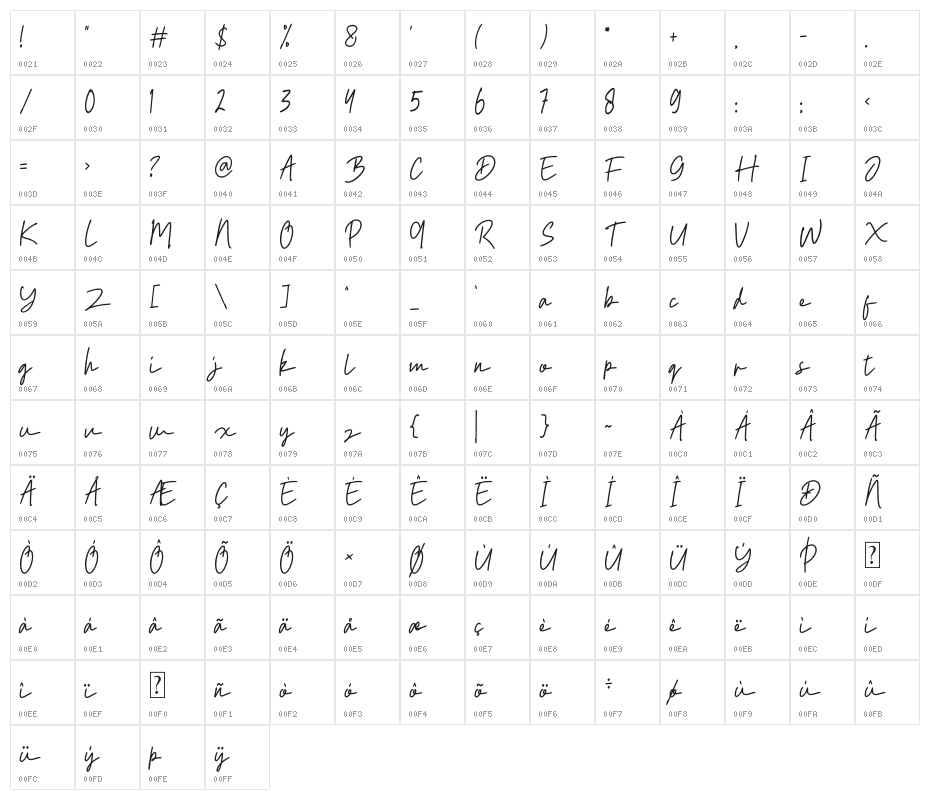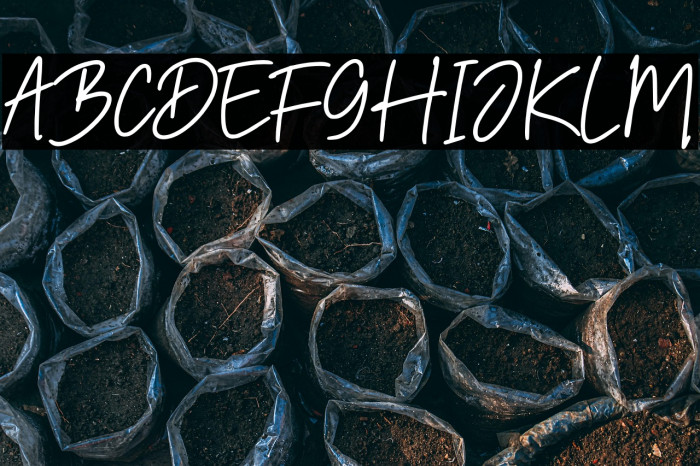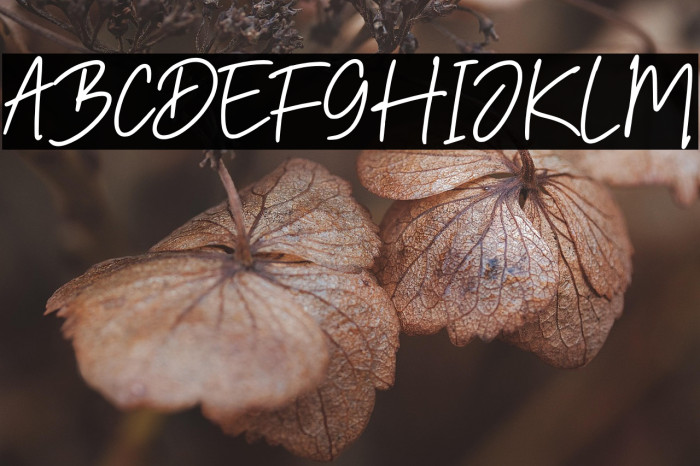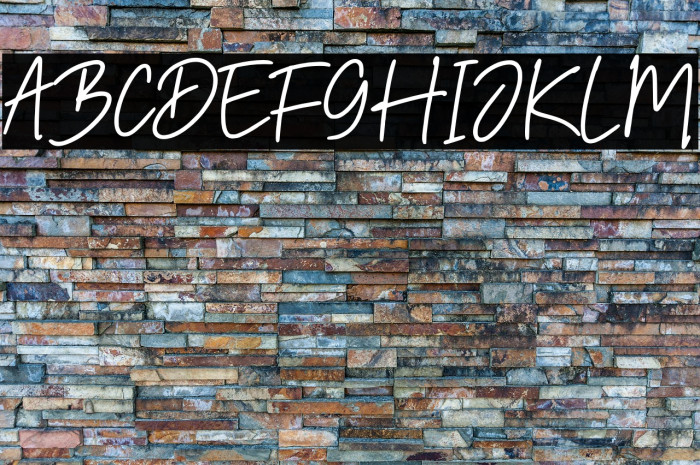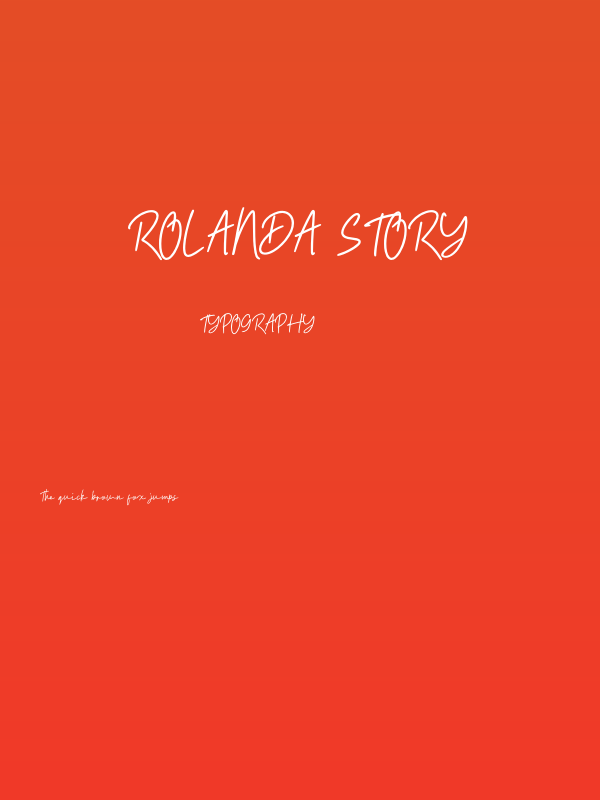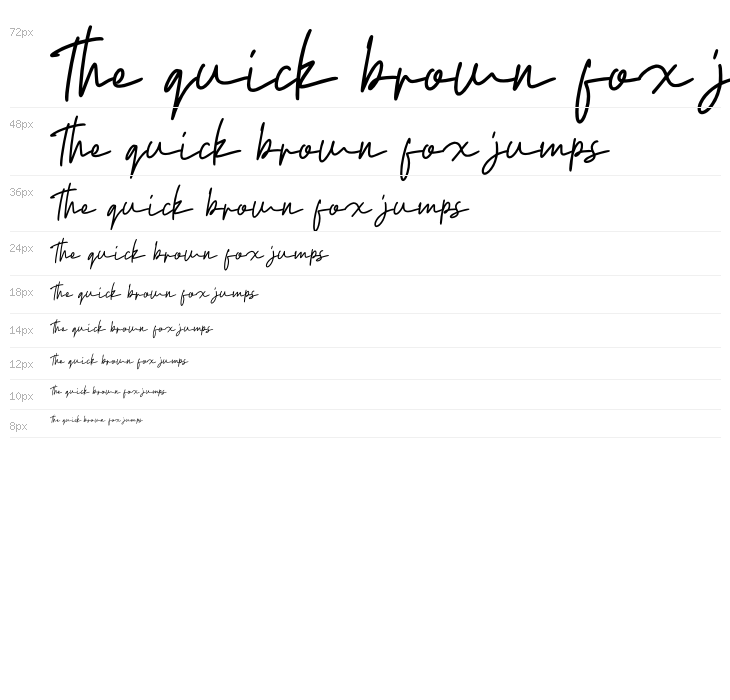
Rolanda Story Font
Rolanda Story Description
This font exudes a casual and dynamic handwritten style, characterized by its fluid and slightly slanted letterforms. The strokes are smooth and continuous, giving it a natural and personal touch. The uppercase letters are bold and slightly elongated, while the lowercase letters maintain a consistent flow, enhancing readability. The numerals and special characters are crafted with the same fluidity, ensuring a cohesive look across all characters. This font's informal yet stylish appearance makes it versatile for various design applications.
| Use Case | Logos, Invitations, Social media graphics |
| Proposed Projects | Ideal for personal branding, invitations, greeting cards, and social media graphics. |